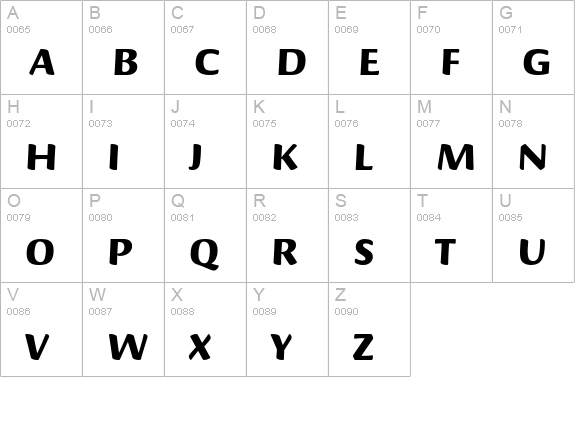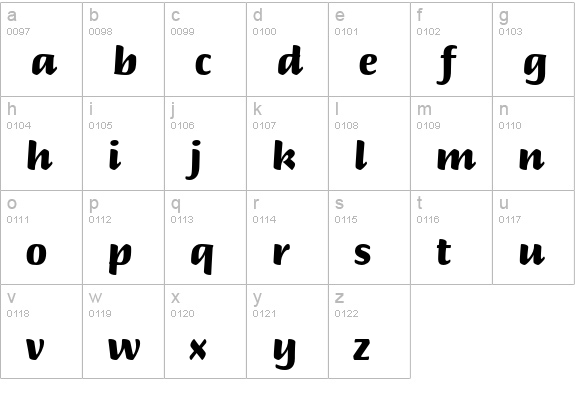
Briem Script Std Black Font Details
Briem Script Std Black is a maximum-weight, dramatic variant in the Briem typeface family \xE2\x80\x94 well suited to maximum-impact headlines, posters, and packaging.
Briem Script Std Black is a stunning and elegant font that exudes sophistication and class. With its bold and flowing script style, this typeface adds a touch of luxury and refinement to any design project. Perfect for invitations, branding, and other creative endeavors, Briem Script Std Black is sure to make a lasting impression. The best part? This exquisite font is available for free download at FontsMarket.com. So, whether you're a designer looking to elevate your work or someone with a passion for beautiful typography, Briem Script Std Black is the perfect choice. Don't miss out on the opportunity to add this timeless and versatile font to your collection today.